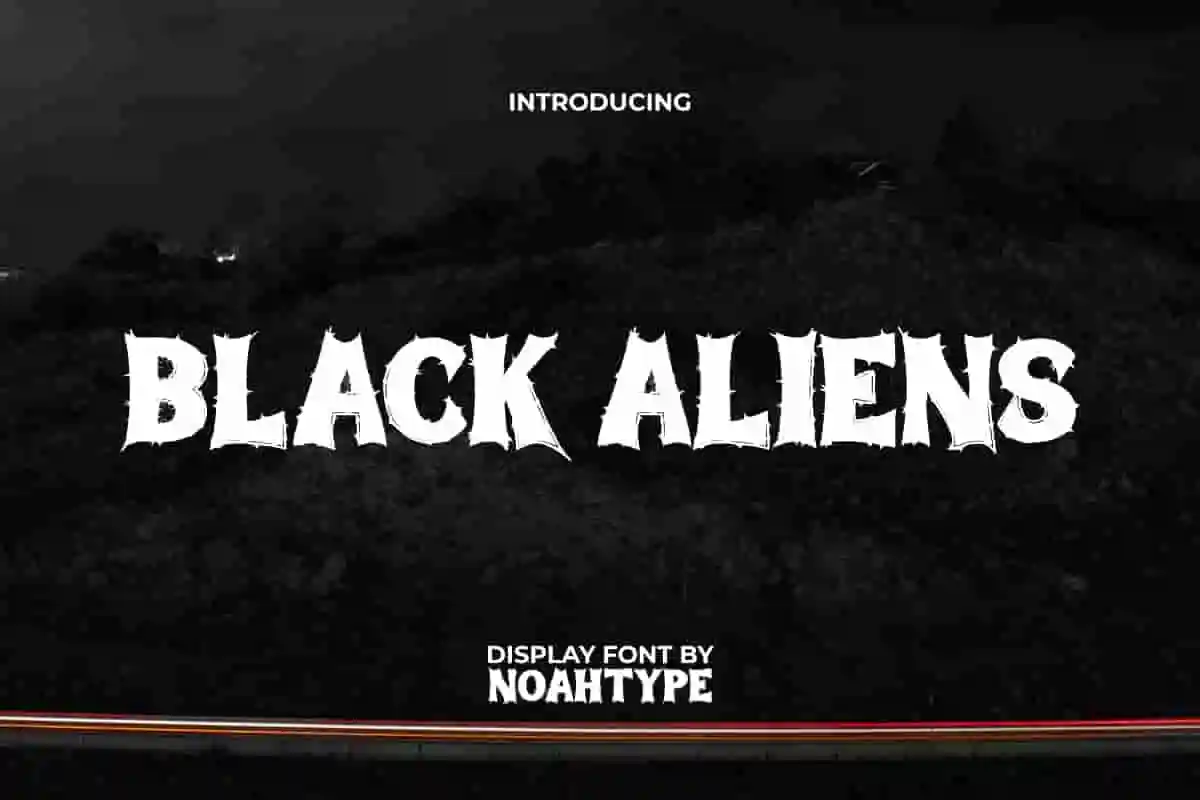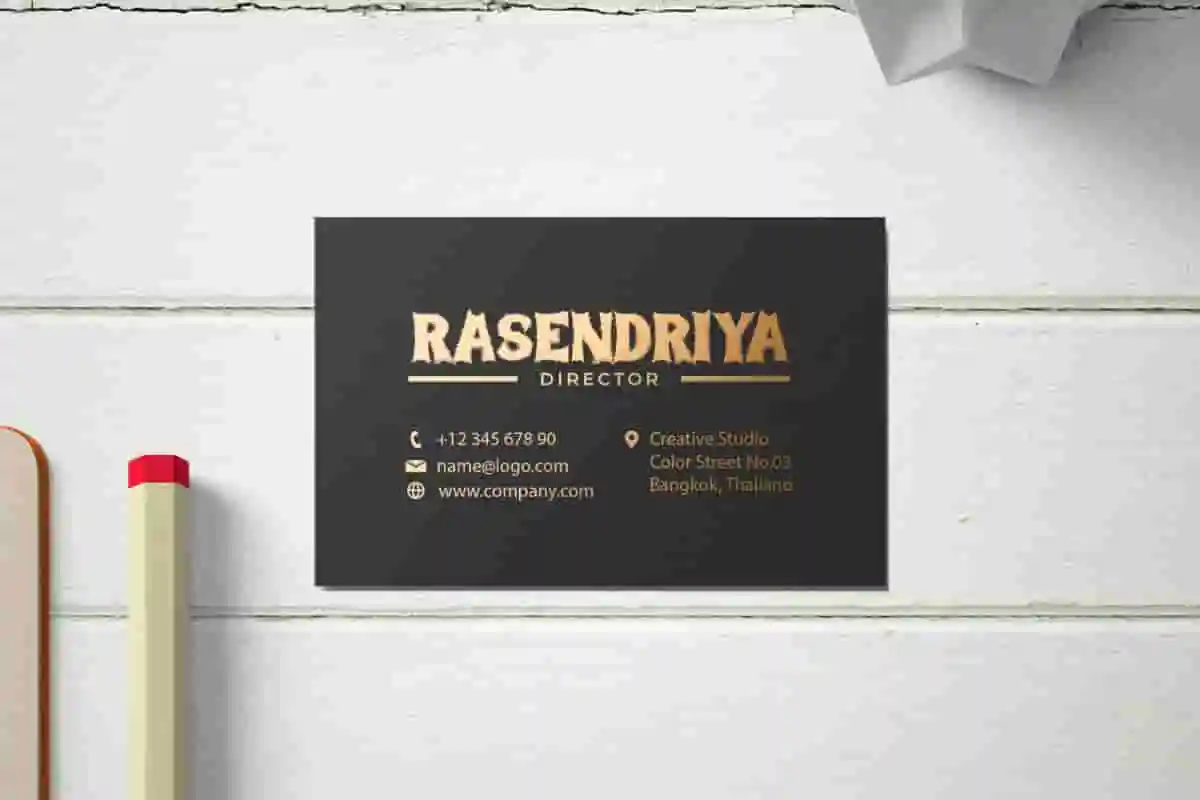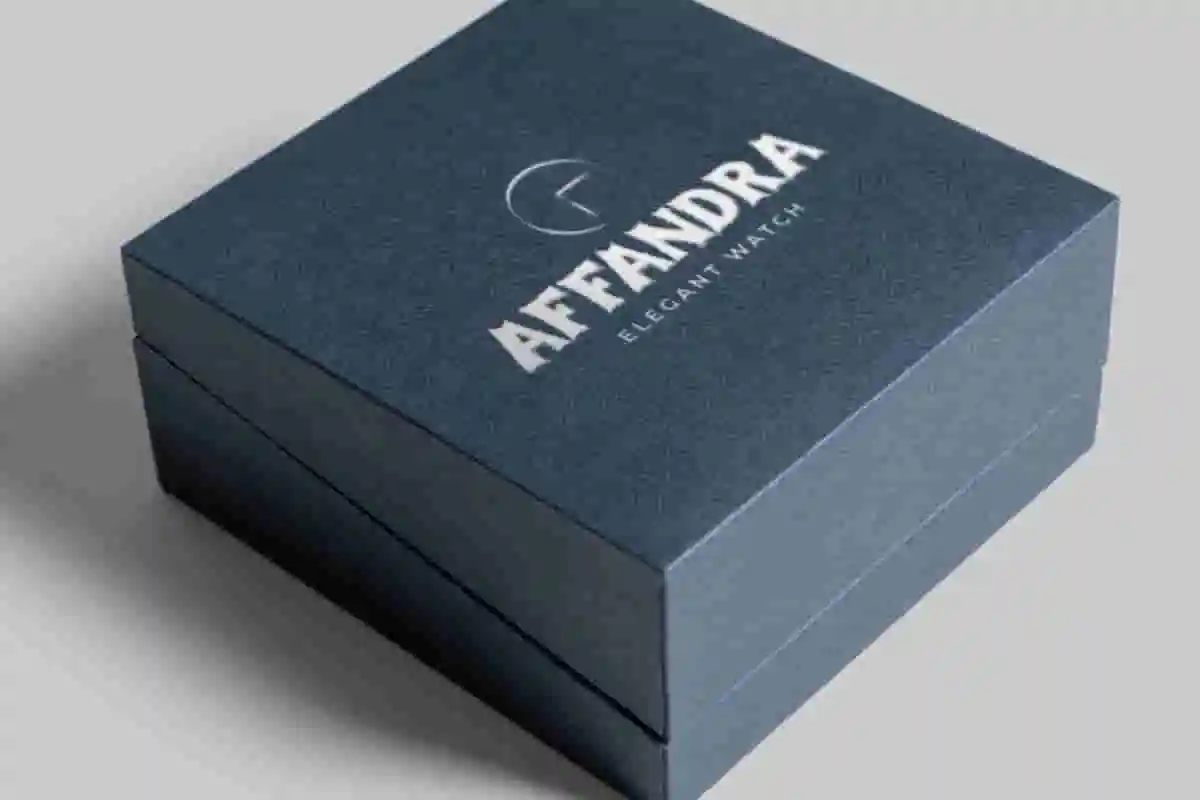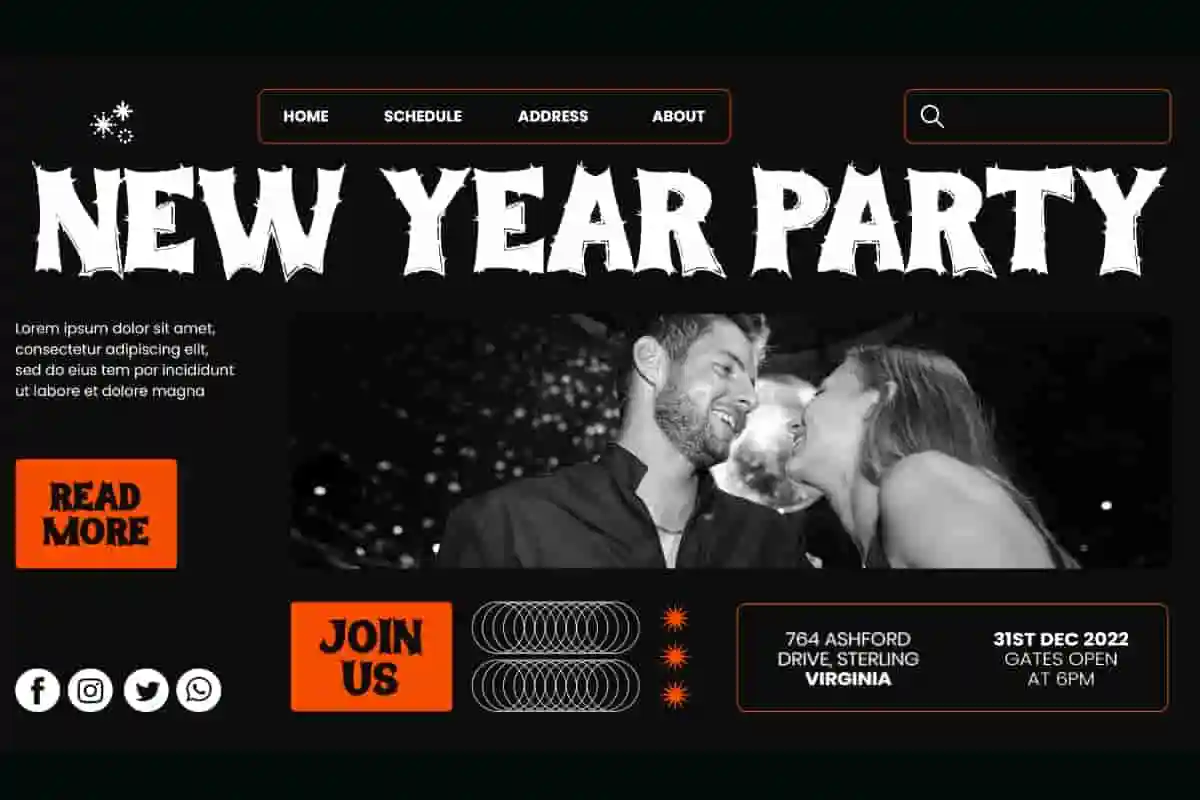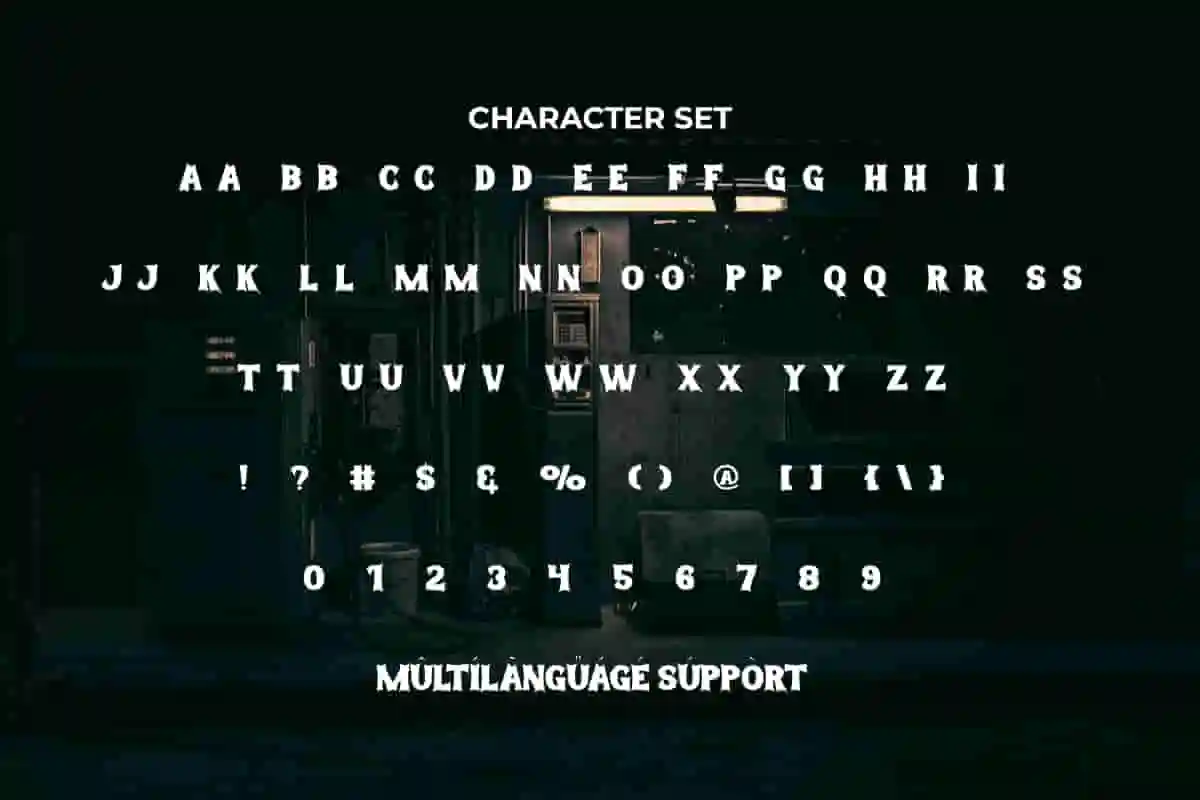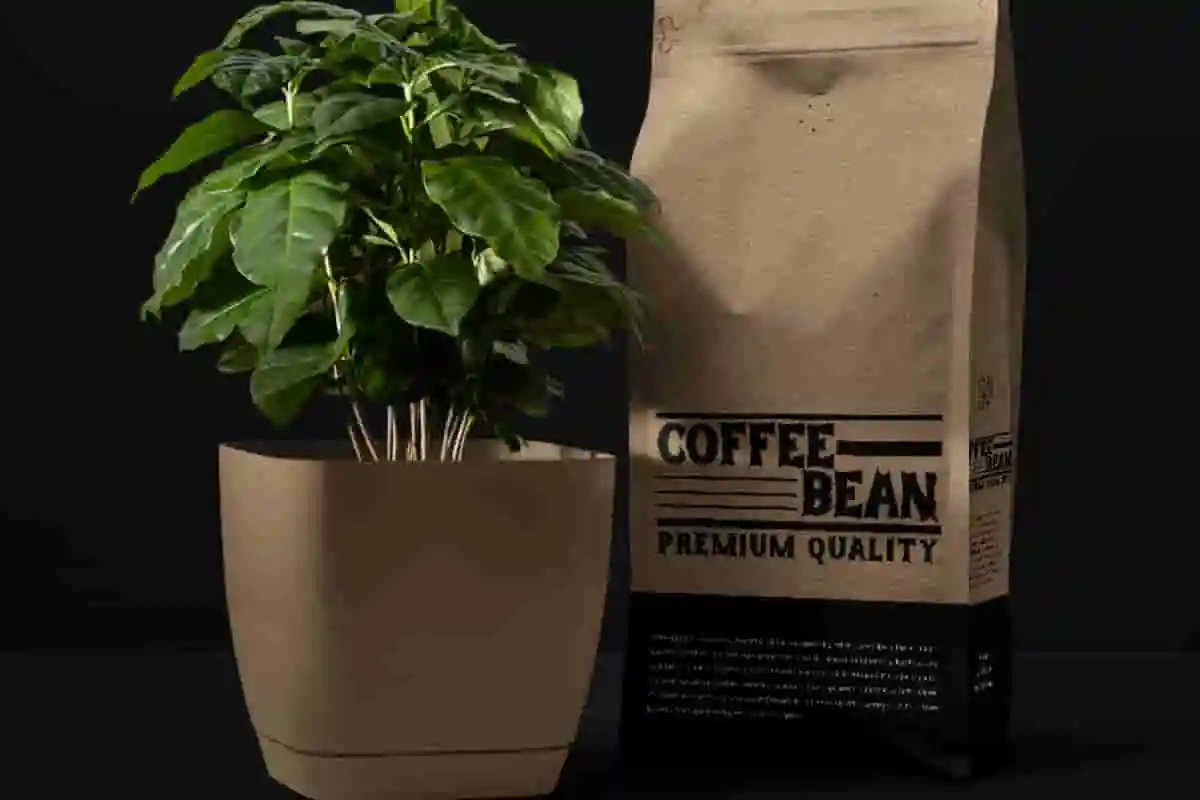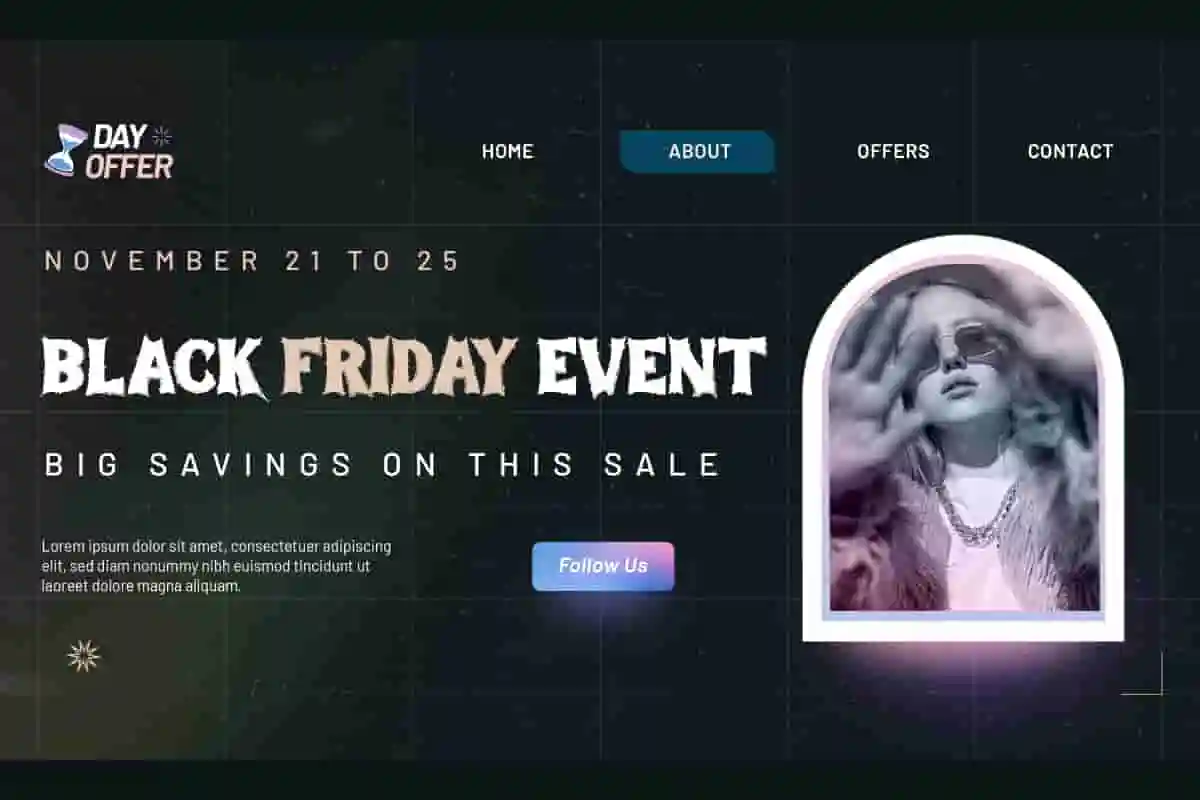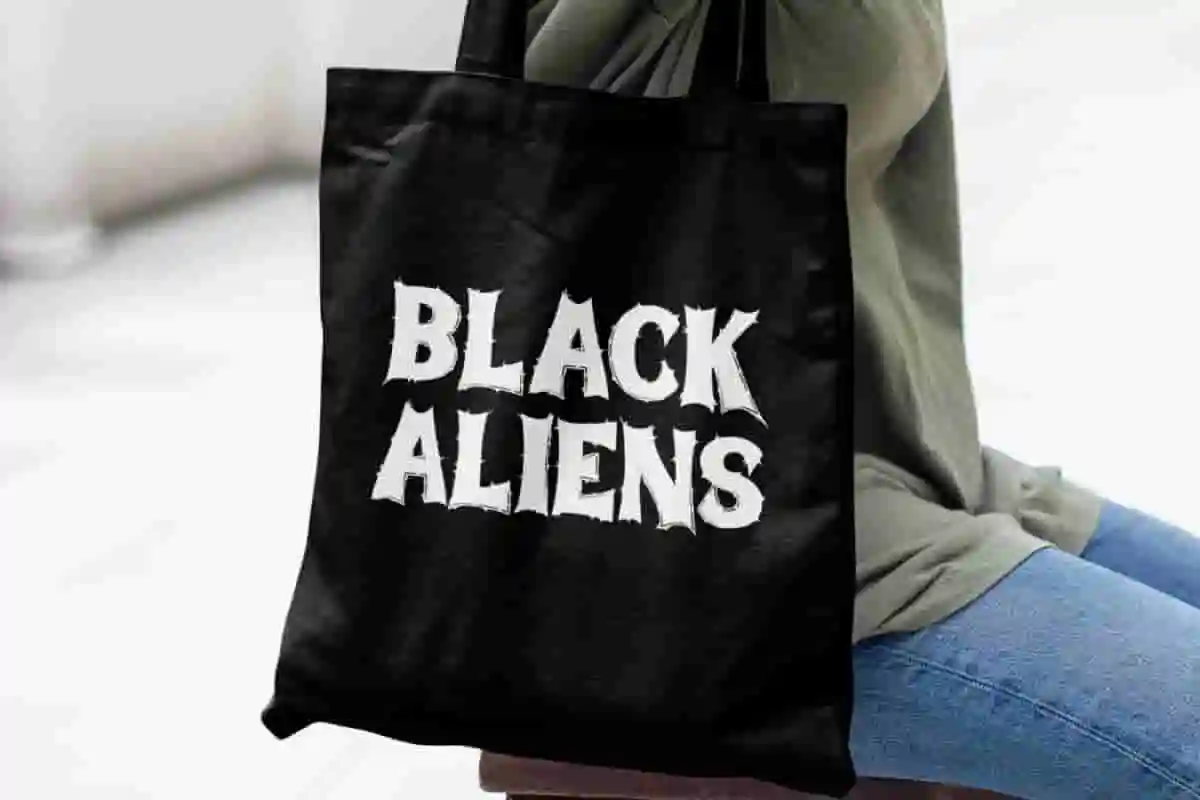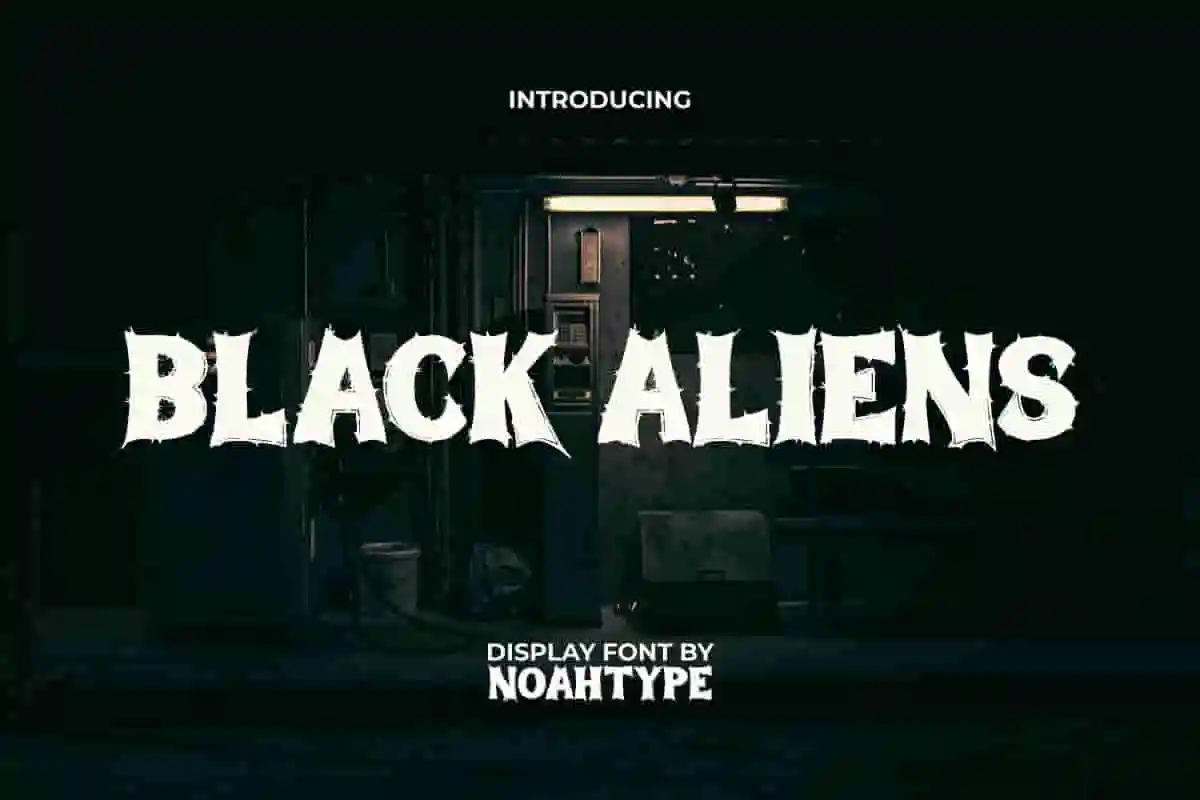
Black Aliens Font is a creepy black metal decorative font by NoahType. This font has small thorns all over the letters so it can make your blood rush when you look at it. It will be perfect for any designs, such as brand image, custom design, invitation, label, marketing material, menu, poster, printing, product packaging, quotes, signage, website, and many more!
Black Aliens Font includes full set of ALL CAPS for Uppercase and Lowercase Basic Characters, Numerals, Punctuation, and Symbol. This font will make your design outstanding and also a perfect choice for many industries, such as accessories, advertising, art, automotive, café, event or festival, fashion, game, movie, printing, publishing, etc.